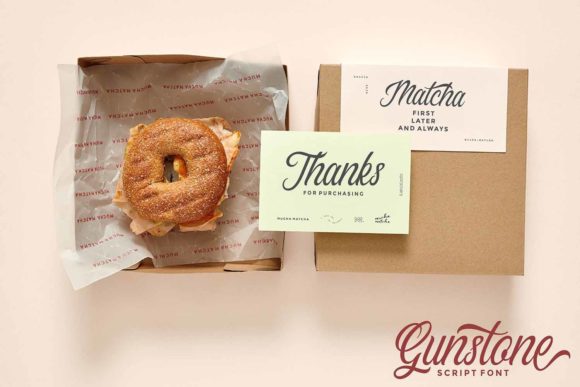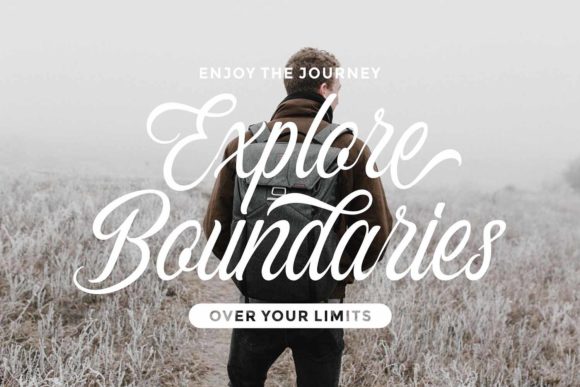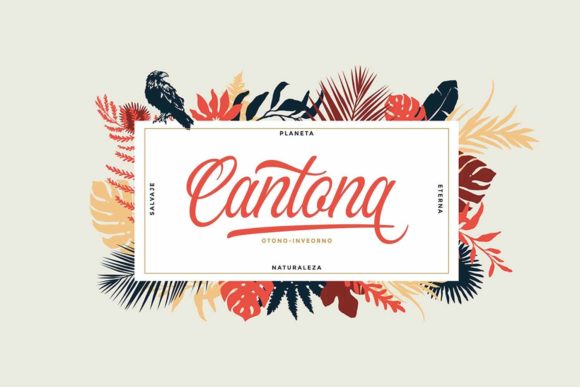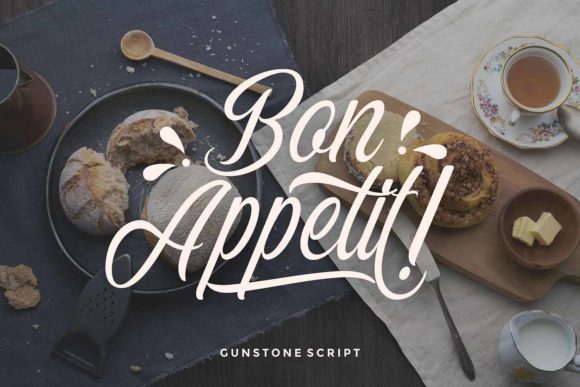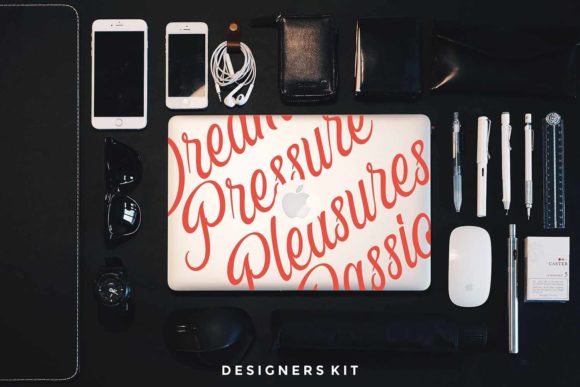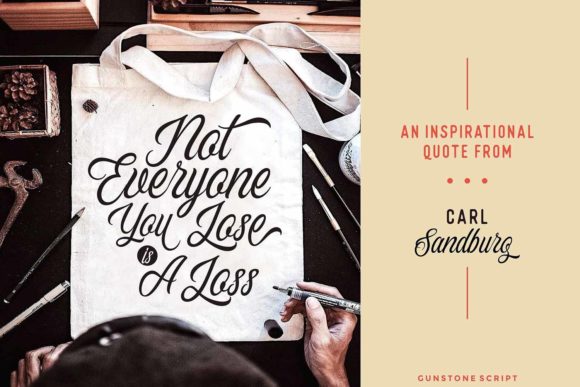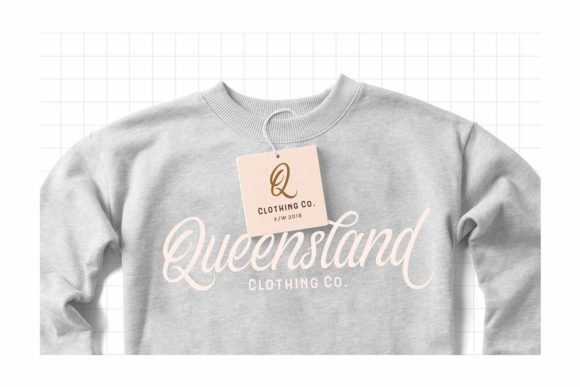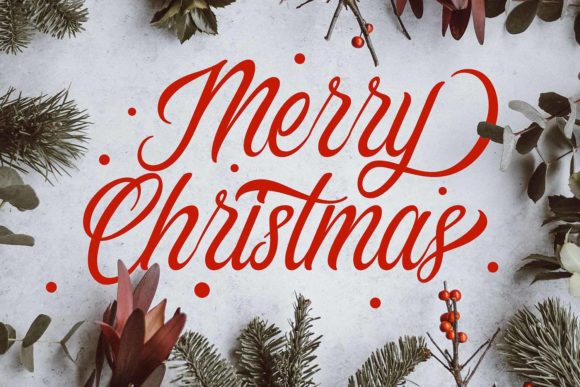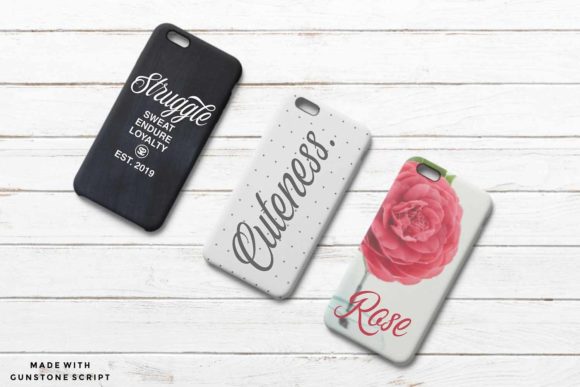
HomeScript FontsGunstone Script Font Script Fonts Gunstone Script Font FacebookXPinterestWhatsApp Gunstone Script Font Poster 2 Gunstone Script Font Poster 3 Gunstone Script Font Poster 4 Gunstone Script Font Poster 5 Gunstone Script Font Poster 6 Gunstone Script Font Poster 7 Gunstone Script Font Poster 8 Gunstone Script Font Poster 9 Gunstone Script Font Poster 10 About Gunstone Script Font Gunstone is a vintage script for the ages. Fall in love with its authentic vibe! DOWNLOAD NOW People also explored The Love Font Ornament Font Boogie Worth Font Bebas Neue Pro Summer Carnival Font William Rossella Font Parisand Font Hello Sunshine Font Camalia Amira Font 314 0 TagsGunstone Script Font Previous articleThe Lucky FontNext articleMinervae Font LEAVE A REPLY Cancel reply Comment: Please enter your comment! Name:* Please enter your name here Email:* You have entered an incorrect email address! Please enter your email address here Website: Save my name, email, and website in this browser for the next time I comment. Personal Use Free Carved Wood Personal Use Free Read more about this font Densmore Personal Use Free Read more about this font Green Fuz Personal Use Free Read more about this font Kids Toys Personal Use Free Read more about this font BLOG The 10 Best Handwriting Fonts to Add Personality to Your Designs 10 of the Best Handwriting Fonts for Adding Personality to Your Designs There will undoubtedly be no other better choice than handwriting fonts to give... 5 Fonts That Will Dominate Design Trends in 2026 Free Fonts Risk: Why Free Fonts Can Be Dangerous for Designers Best Fonts for T-Shirt Design – Top 2025 Picks